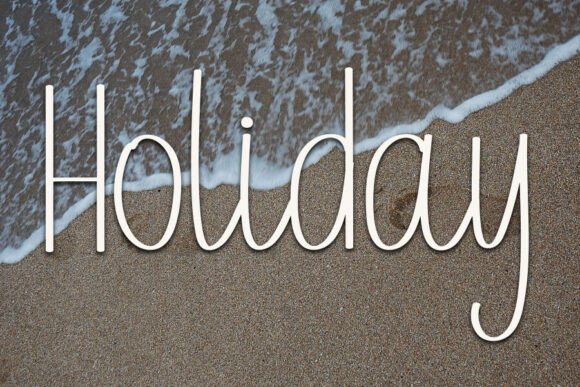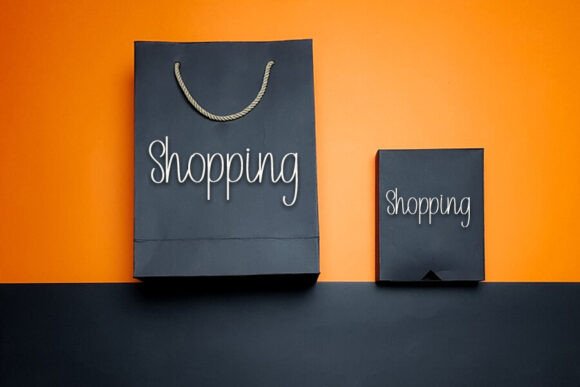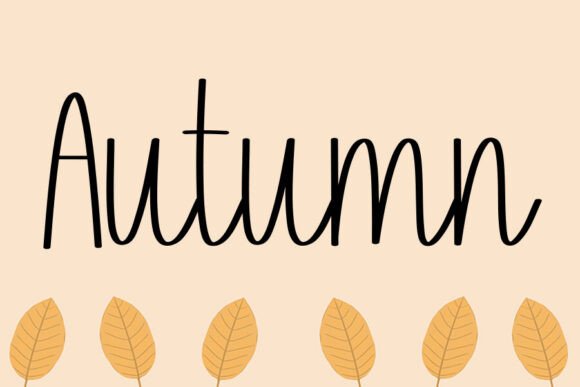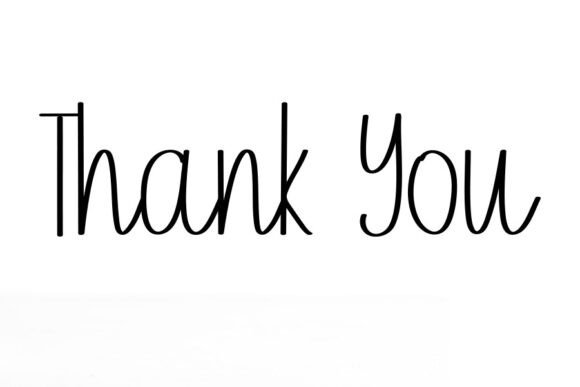
The Perfect Blend of Whimsy and Elegance: Introducing Bunny Font
There’s something magical about stumbling upon the perfect font for a design project. It’s like finding a hidden treasure, and your creative juices start flowing in no time. You envision the perfect layout, the perfect colors, and the perfect typography – and that’s exactly what happens when you discover the enchanting Bunny Font.
This lovely cursive handwritten font is designed to add a touch of joy and romance to any project. Whether you’re working on branding, logo design, wedding invitations, or greeting cards, Bunny Font is sure to bring a smile to your face and a sense of wonder to your design. As a designer, you know how valuable it is to have a versatile font that can elevate your work and make it stand out from the crowd.
Bunny Font Key Features
- Unique Characteristics: The Bunny Font features a distinctive, hand-drawn design with a playful and whimsical feel, making it perfect for children’s books, educational materials, and other projects requiring a friendly tone.
Bunny Font Review
Overall, I found the “Bunny Font” to be a delightful, whimsical font that can add a touch of playfulness to any design project ✨. Its rounded edges and childlike charm make it perfect for creating a friendly, approachable atmosphere. The font is also highly customizable, with a wide range of sizes and colors available, making it easy to integrate into various design contexts.
- Fun and playful design ✨
- Perfect for children’s books, educational materials, and other projects that require a friendly tone
However, I did encounter a few limitations with the “Bunny Font” ⚠️. The font can be quite overwhelming when used in large quantities, and it may not be the best choice for projects that require a more serious or professional tone. Additionally, the font’s rounded edges can sometimes make it difficult to read at small sizes.
- May be overwhelming when used in large quantities ⚠️
- Not suitable for professional or serious projects
- May be difficult to read at small sizes
Overall, I would recommend the “Bunny Font” for projects that require a playful, friendly tone. While it has its limitations, its charm and versatility make it a valuable addition to any designer’s toolkit ✨.
Some tips for getting the most out of the Bunny Font include using it for playful and whimsical designs, such as children’s books, party invitations, and social media graphics. You can also use it to create a fun and quirky logo or brand identity.